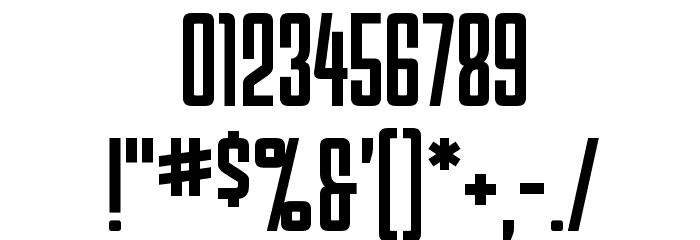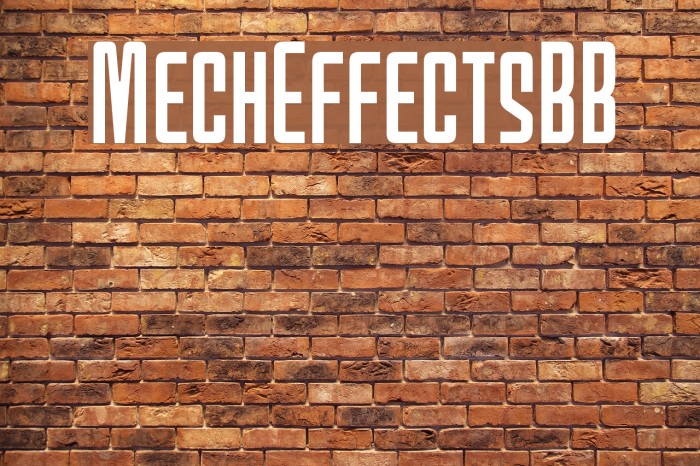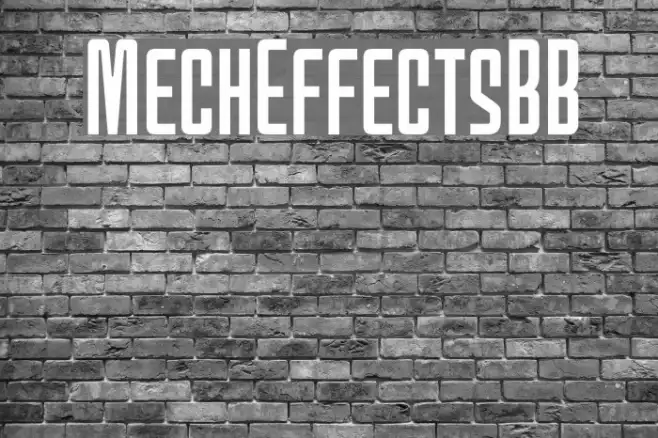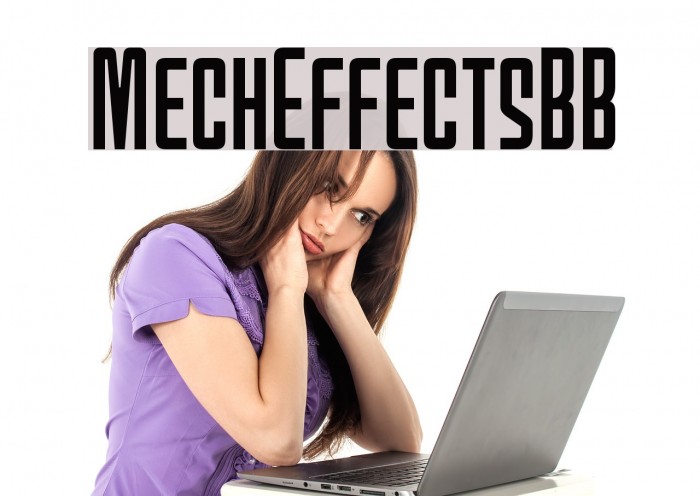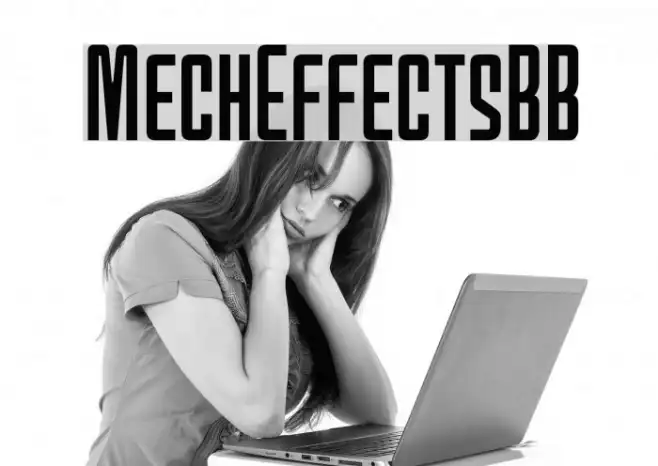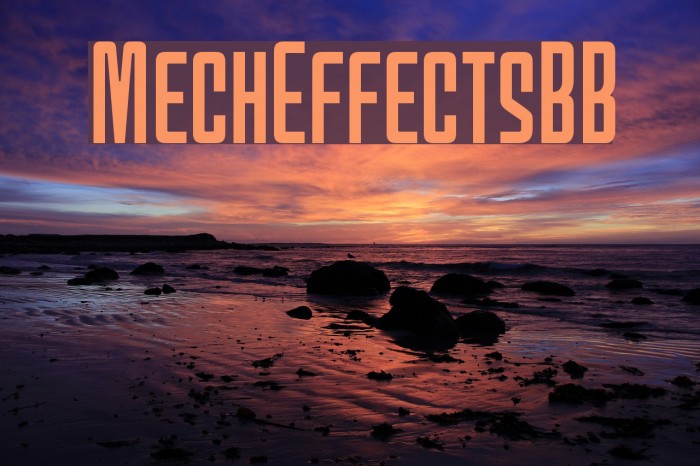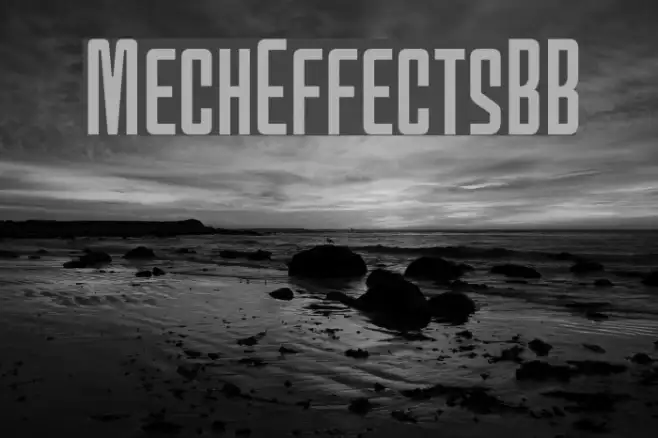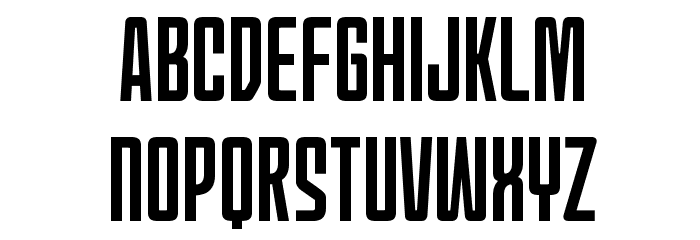
MechEffectsBB Font
MechEffectsBB Description
This font features a bold and modern design with a strong geometric influence. The characters are tall and narrow, giving a condensed appearance that is both striking and legible. The uppercase and lowercase letters maintain a consistent height, enhancing the uniformity of the typeface. The numbers and special characters are designed to match the overall style, ensuring a cohesive look across all text elements. The font's clean lines and sharp angles make it suitable for contemporary design projects, where a sleek and professional aesthetic is desired.
| Proposed Projects | Ideal for technology branding, modern posters, futuristic designs, and digital interfaces. |